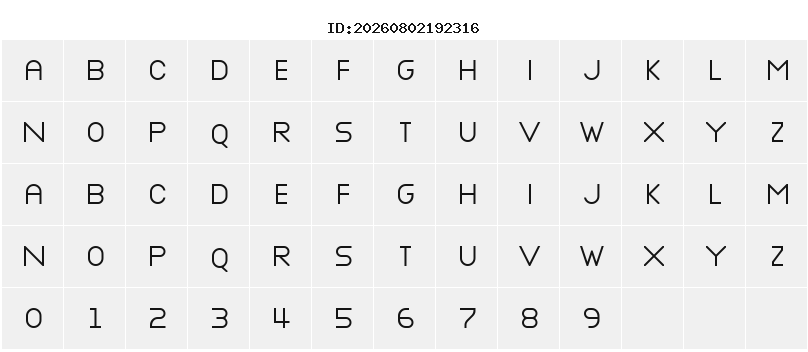
Nottke Preview
About Nottke.ttf
Nottke.ttf is a modern, elegant sans-serif font designed for ultimate readability and visual harmony. Perfect for branding, headlines, web design, and print materials.